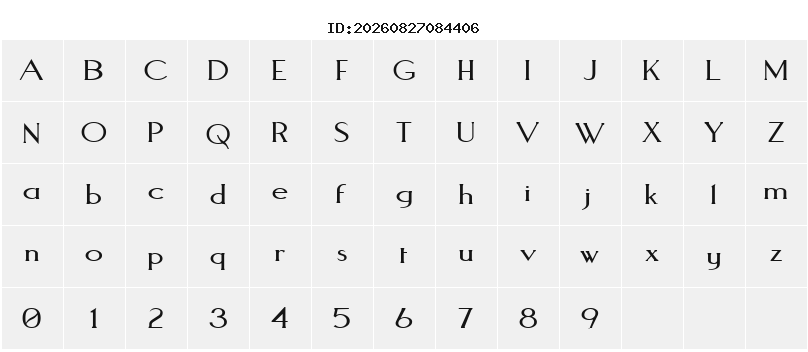
3代呼吸英文-黑小精灵 Preview
• Font Name: 3代呼吸英文-黑小精灵
• Font Style: Plain
• Font ID: Aquaduct Plain
• Full Font Name: 3代呼吸英文-黑小精灵
• PostScript Name: AquaductPlain
• Copyright: ? Graham Meade / Name courtesy - Jami Reed (TTR)
About 3代呼吸英文-黑小精灵.ttf
3代呼吸英文-黑小精灵.ttf is a modern, elegant sans-serif font designed for ultimate readability and visual harmony. Perfect for branding, headlines, web design, and print materials.